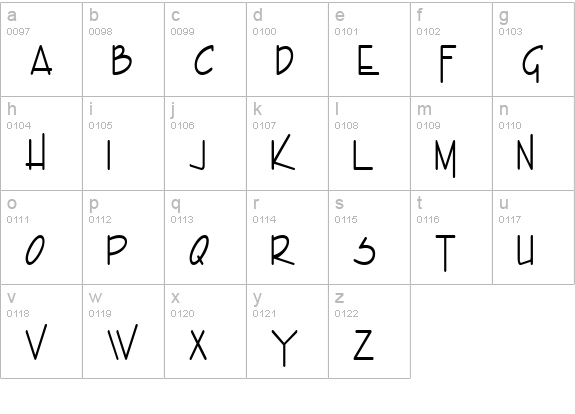
Enview Thin Normal is a delicate, low-contrast variant in the Enview typeface family \xE2\x80\x94 well suited to fashion editorial, minimal branding, and high-contrast display.
Enview Thin Normal font is a sleek and modern typeface designed to add a touch of elegance to any project. With its clean lines and slender letterforms, this font exudes a sense of sophistication and style. Perfect for use in branding, editorial design, and more, Enview Thin Normal font is versatile and eye-catching. And the best part? Enview Thin Normal font is completely free to download at FontsMarket.com. Whether you're a professional designer looking for a new typeface to elevate your work or someone simply looking to add a stylish touch to personal projects, Enview Thin Normal font is the perfect choice. Download it today and see the difference it can make in your designs.